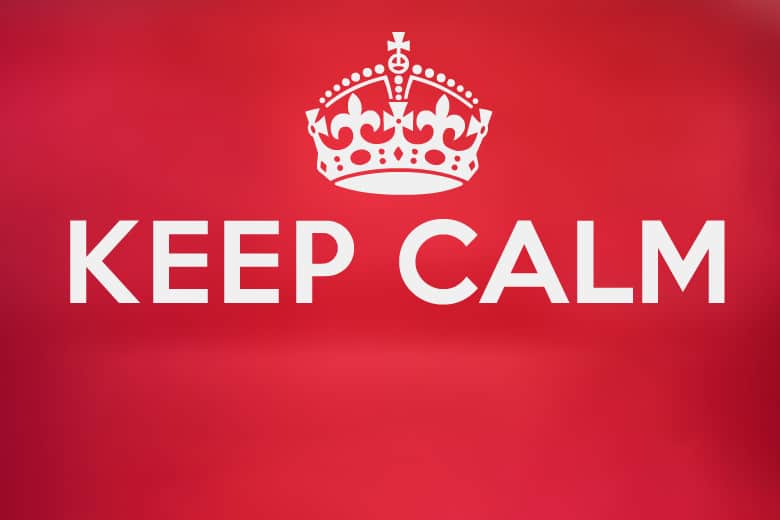
Keep Calm Sans Serif Font
Keep Calm Font
Keep Calm Sans Serif Font is a family of fonts developed from the now famous World War 2 poster that was designed in 1939 but never issued, then rediscovered in 2000. As well as the original Keep Calm font, the medium weight of the poster, new weights are now available – Keep Calm Book (regular weight), Heavy and Light – and each weight comes with a complimentary italic.
When I first saw the Keep Calm and Carry On poster, I wrongly assumed the letters to be Gill Sans. Recent research at the National Archive by Dr. Bex Lewis of Manchester Metropolitan University has revealed that the original poster was hand drawn by the illustrator and painter, Ernest Wallcousins. The Gill Sans influence is apparent, in the R particularly, the M’s perfectly pointed vertex is redolent of Johnston’s Underground, and the most anomalous character, the C, resembles the ‘basic lettering’ of engineers that provided the vernacular sources for the Gotham typeface.